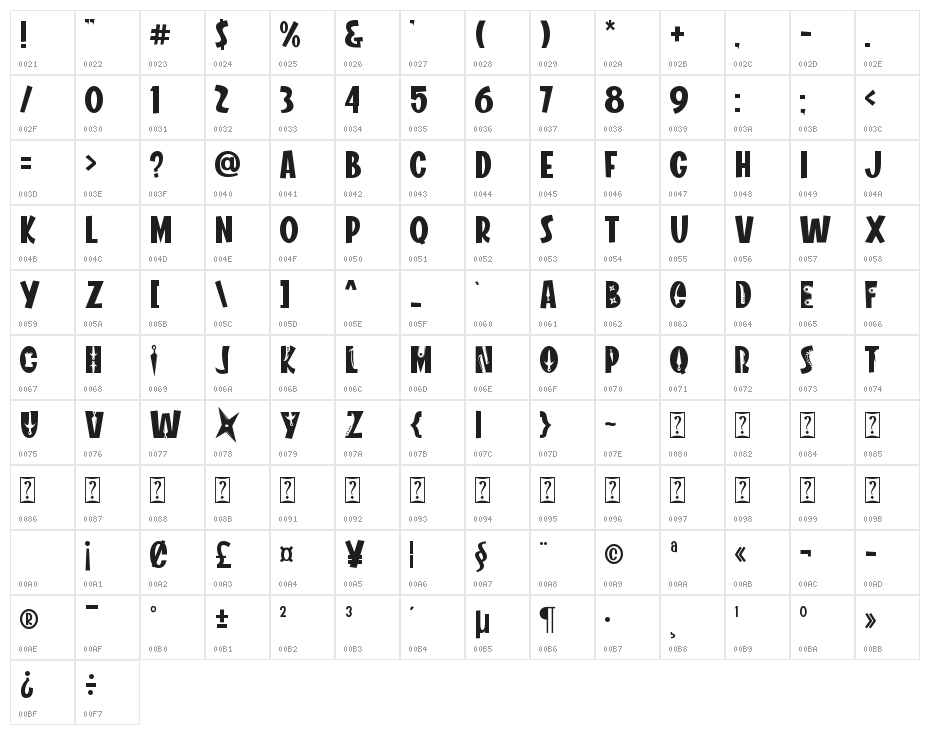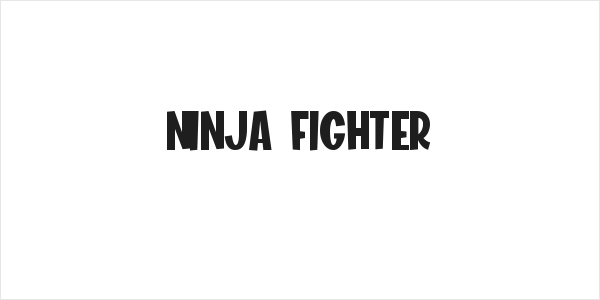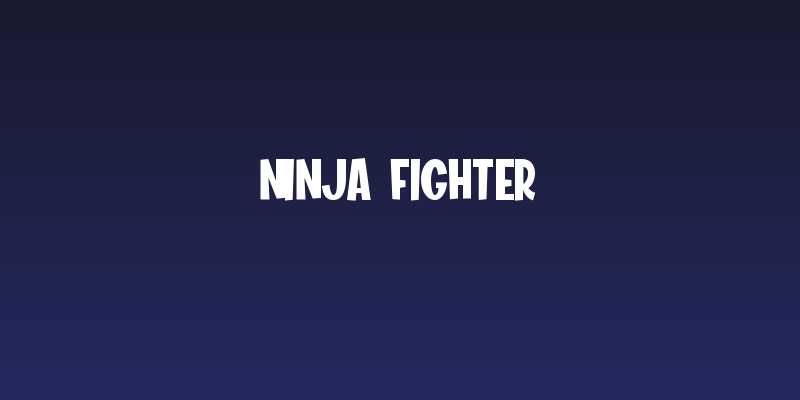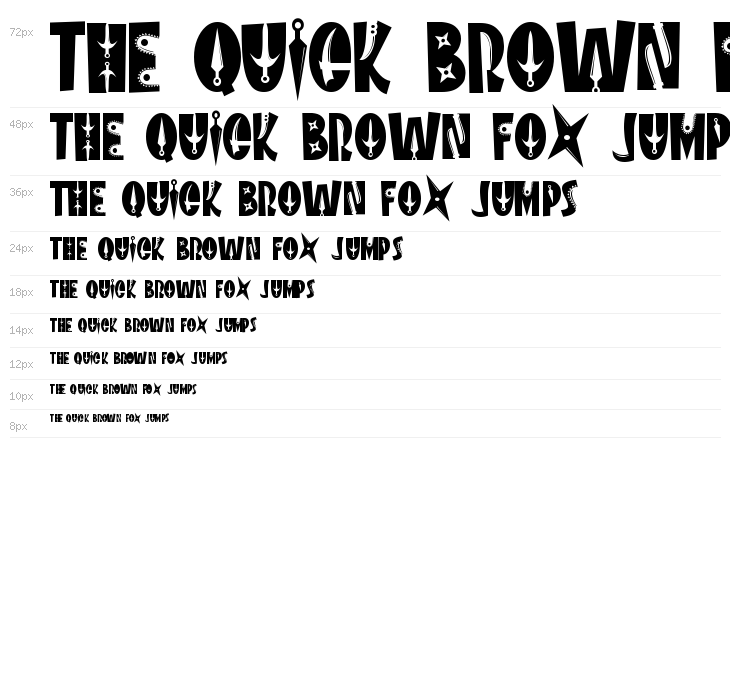
NINJA FIGHTER Font
NINJA FIGHTER Description
This font features a bold and dynamic style, incorporating elements reminiscent of ninja themes, such as shurikens and blades, into its design. The uppercase and lowercase letters are uniquely stylized, with sharp angles and decorative elements that evoke a sense of action and stealth. The numbers and special characters maintain this thematic consistency, making the font highly distinctive and eye-catching. Its playful yet edgy appearance makes it suitable for projects that require a strong visual impact.
Proposed ProjectsIdeal for video game titles, movie posters, martial arts event promotions, and themed merchandise designs.